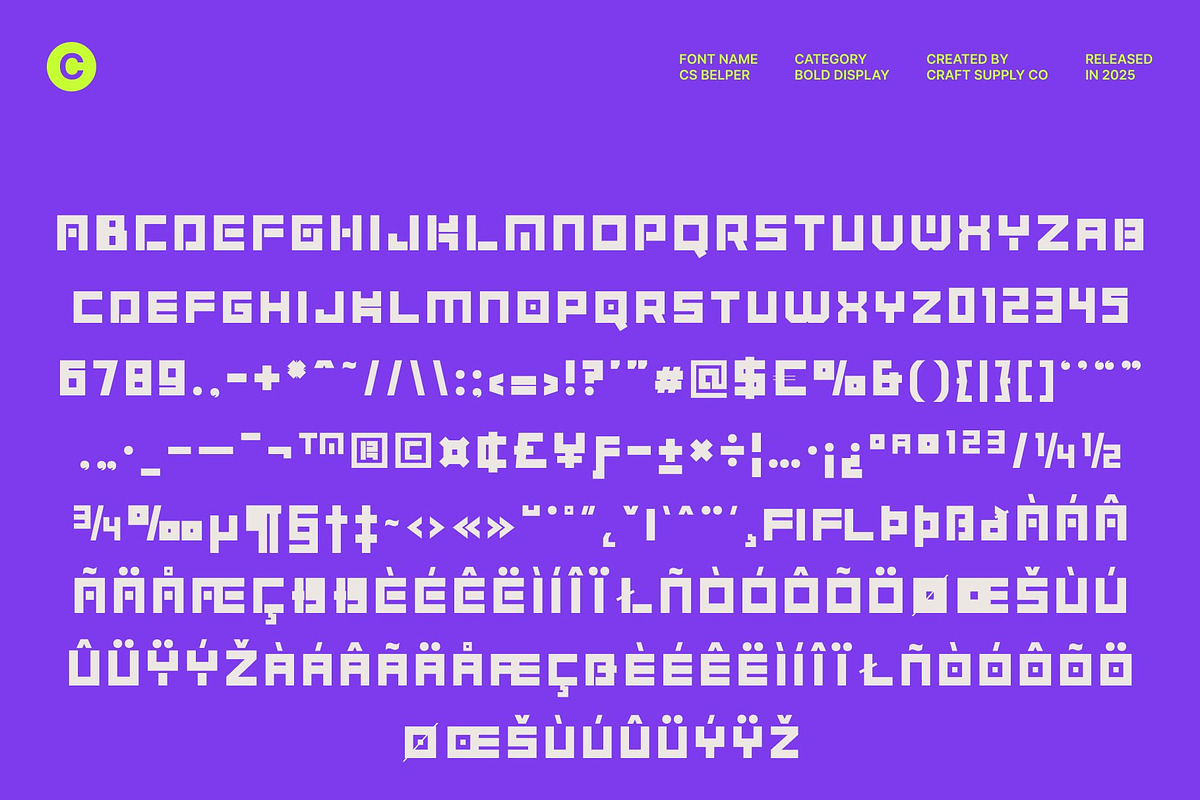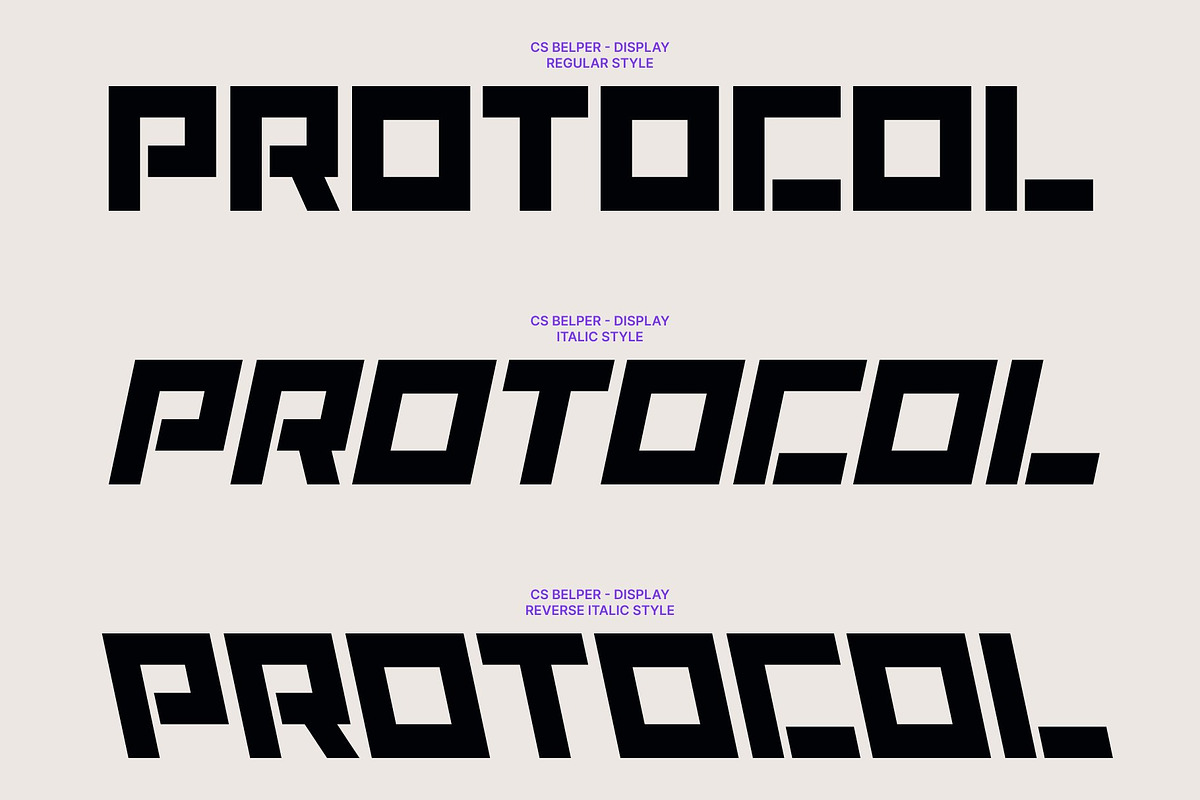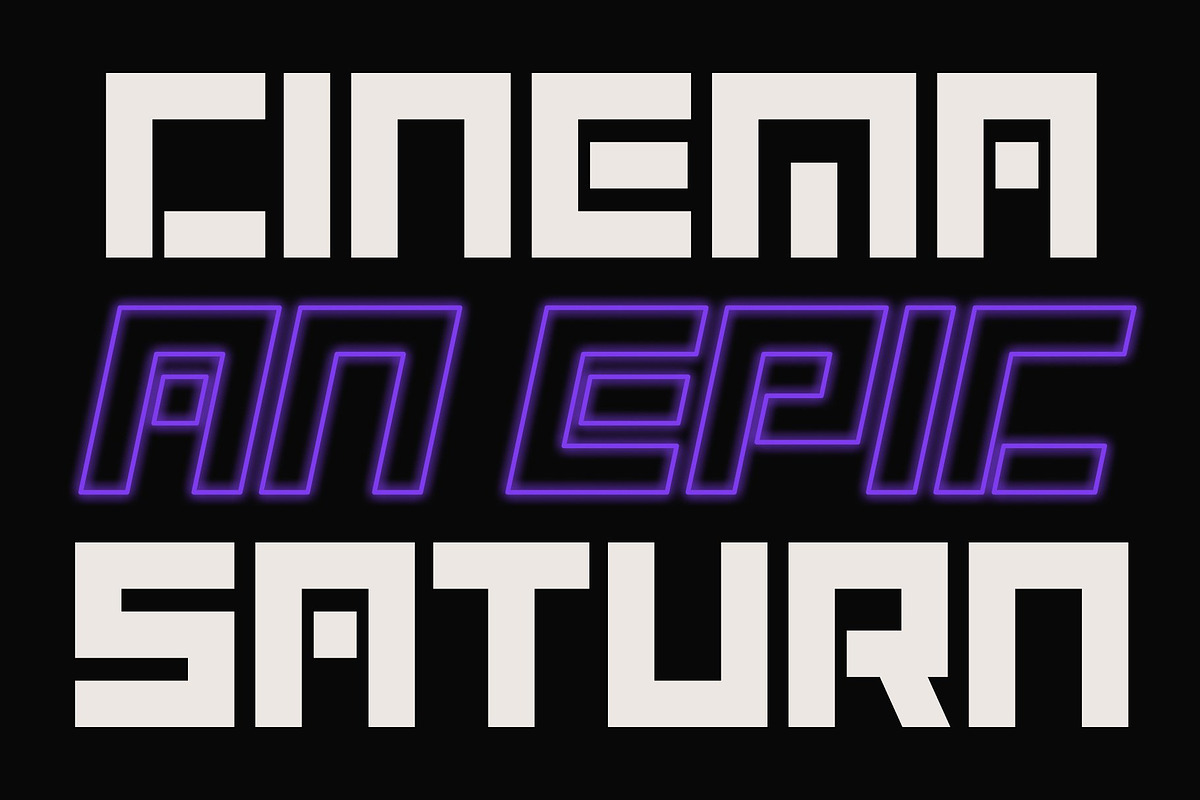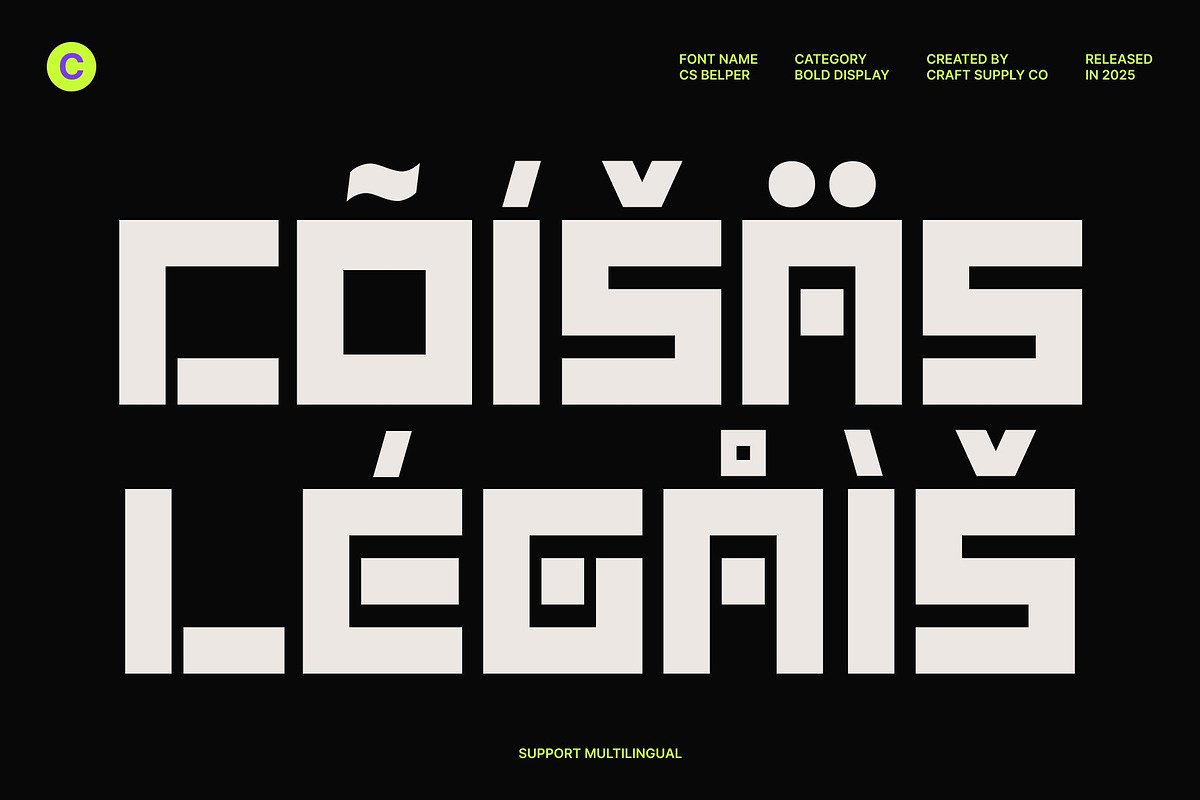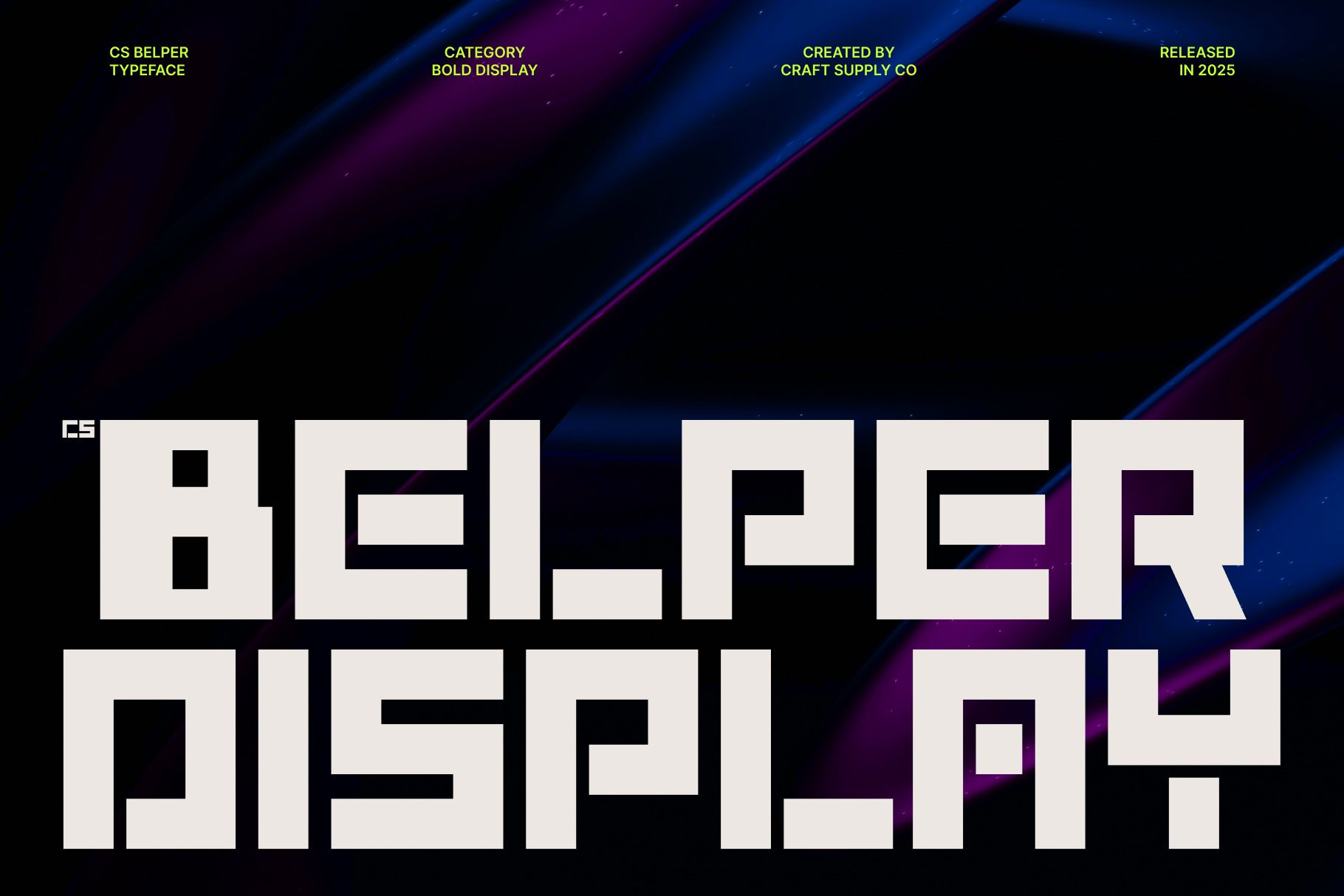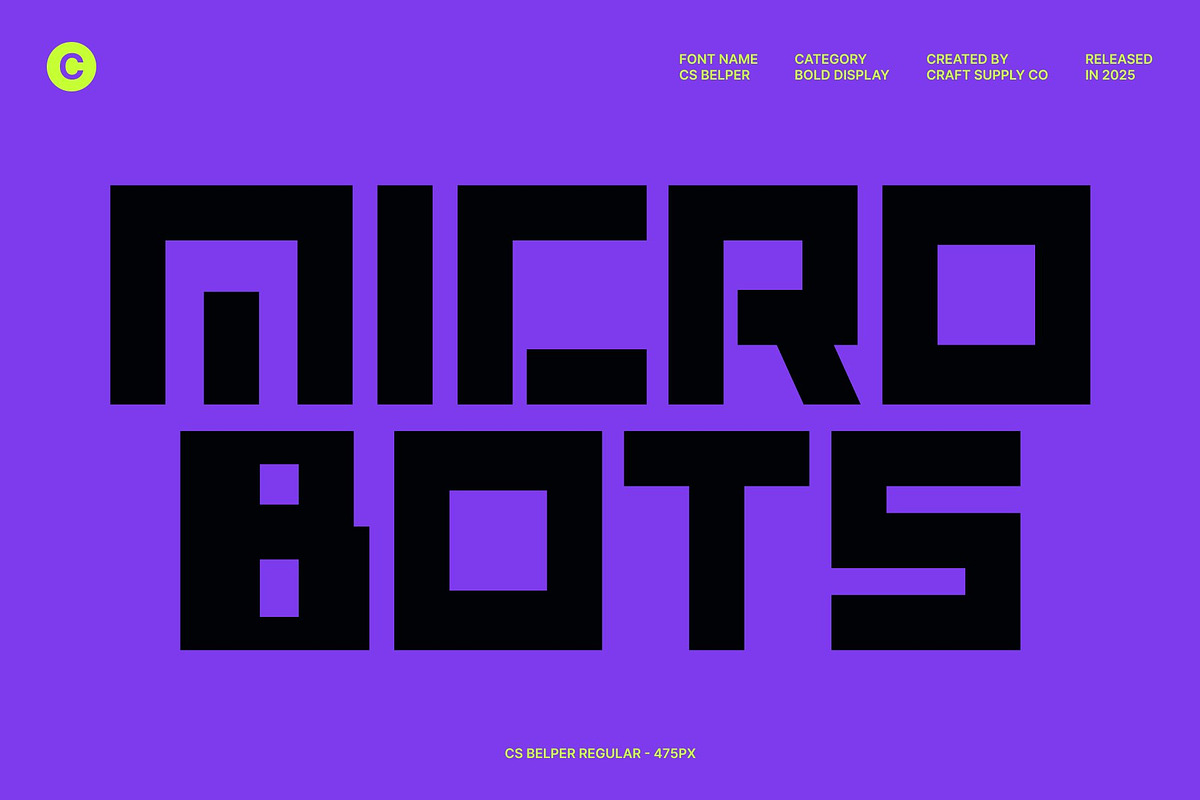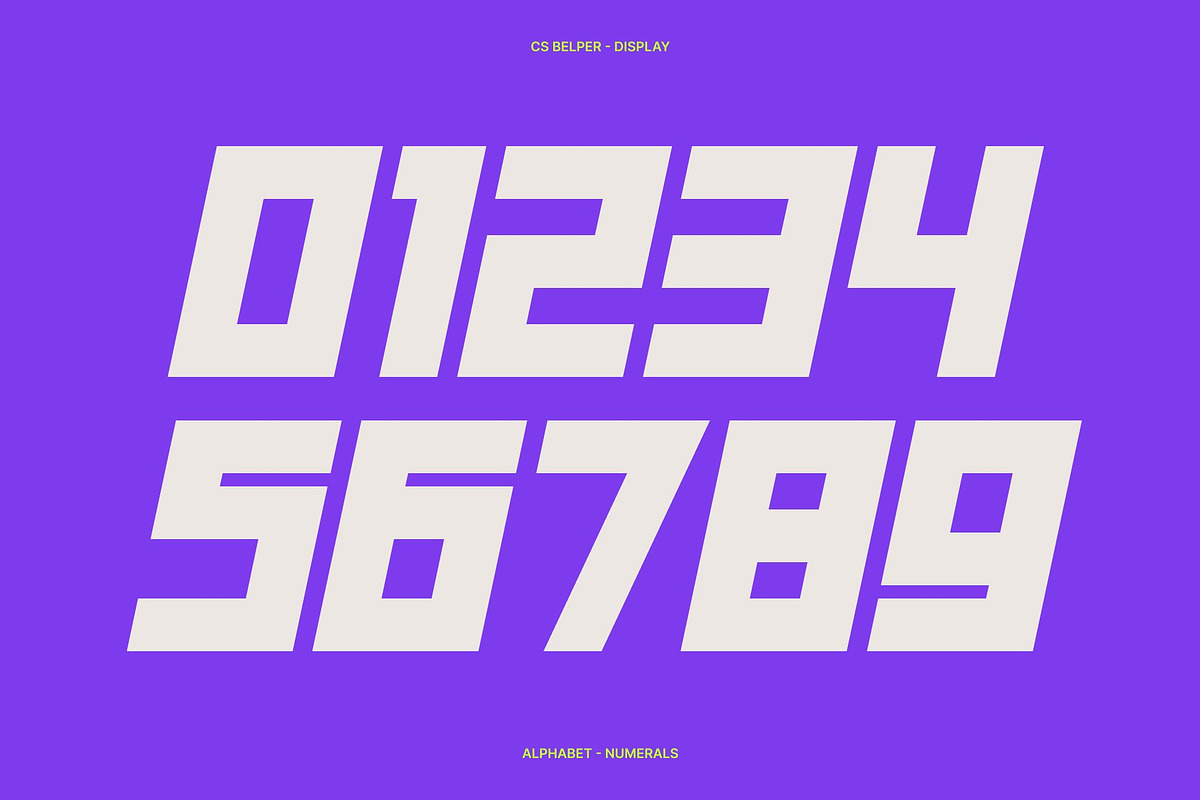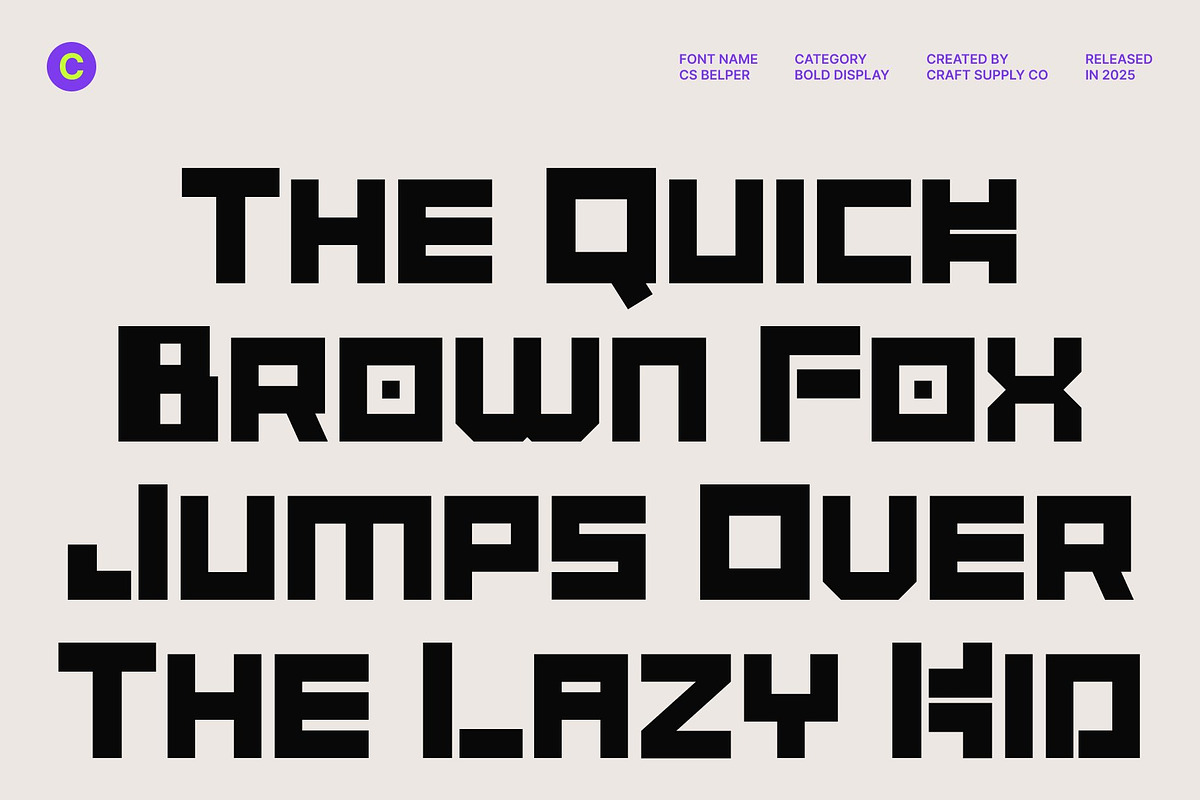
CS Belper – Futuristic Font
CS Belper – Futuristic Power with Modern Energy
Futuristic Display Font with Techno Influence This is a bold futuristic display font designed to radiate modern energy and visual intensity. Built with a strong techno foundation, this font embraces sharp forms, assertive structures, and experimental details that immediately set it apart. Its design reflects a forward-thinking mindset, combining industrial toughness with a contemporary digital edge.
Bold Forms with Industrial and Brutalist Character The bold letterforms of this font are inspired by industrial systems and brutalist design principles. Solid strokes, rigid geometry, and unapologetically strong shapes create a raw and commanding presence. This brutalist influence gives the font a sense of honesty and power, making it feel mechanical, urban, and uncompromising.
Experimental Design for Modern Expression This font pushes beyond conventional typography with its experimental approach. Its futuristic construction explores unconventional proportions and dynamic shapes, resulting in a font that feels innovative and progressive. This experimental nature makes it ideal for designers who want to break visual norms and create bold typographic statements.
Ideal for Branding, Logos, and Posters Designed for high-impact applications, this font is perfect for branding, logos, poster designs, and promotional visuals that demand a strong identity. Its modern energy and techno-industrial aesthetic make it an excellent choice for technology brands, creative studios, music events, fashion campaigns, and experimental projects.
- CS Belper Regular
- CS Belper Italic
- CS Belper Reverse Italic